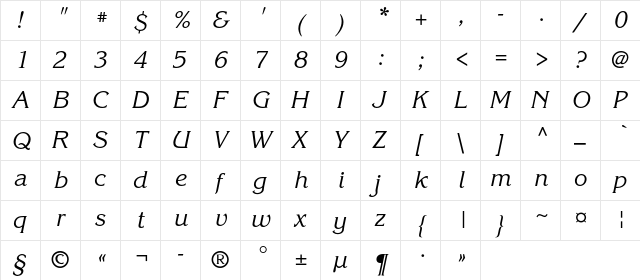
KorinnaC Italic Font Preview
KorinnaC Italic
Design Context for KorinnaC Typeface
KorinnaC is a composed and adaptable typeface that performs quietly and consistently across a wide range of design contexts. The slanted form adds forward momentum and visual energy.
Pro Tip: Try KorinnaC for annotation and caption copy alongside an upright companion — the contrast in angle creates a dynamic but ordered typographic system.